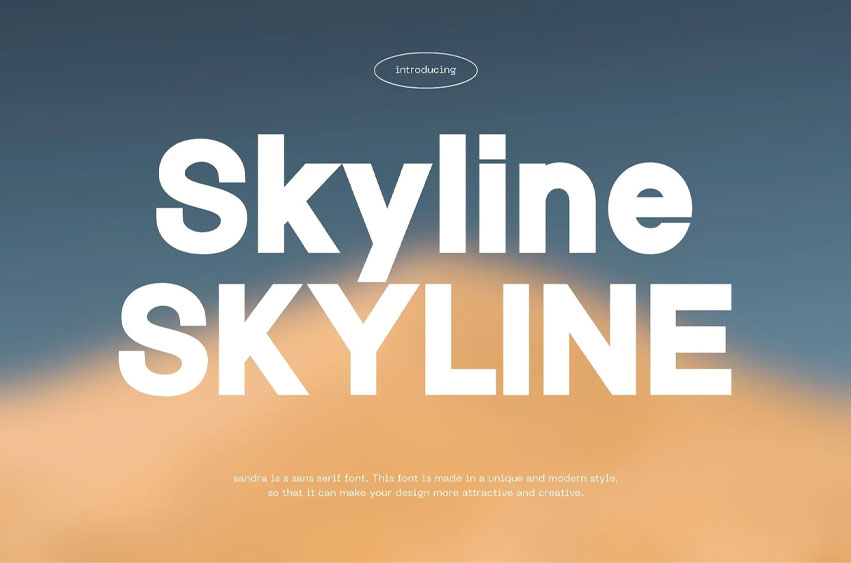
Skyline Bold Font
Skyline Bold Font is a modern sans-serif font that features a strong and commanding presence. Because of its thick strokes and clear shapes, this typeface is perfect for projects that require boldness combined with simplicity. Whether you use it for headlines, logos, or digital design, Skyline Bold delivers a confident and clean look.
First, the font showcases solid, uniform strokes paired with geometric letterforms. In addition, the wide letter spacing enhances readability while maintaining a compact, balanced structure. Also, the clean edges give the font a professional and fresh feel without being overly rigid or cold.
Moreover, Skyline Bold’s design is versatile and fits a variety of creative projects, including branding, advertising, tech, and fashion. Because of its clear and sturdy style, it pairs well with lighter sans-serifs or elegant serif fonts. This allows designers to create clear contrasts and effective visual hierarchy in their layouts.
Besides its bold appearance, Skyline Bold remains highly legible across different sizes and formats. The open shapes prevent crowding, making it easy for viewers to focus on the text. Furthermore, its straightforward design adapts well to both print and digital media.
To summarize, Skyline Bold offers:
• Strong modern sans-serif with solid strokes
• Geometric letterforms with clean edges
• Wide spacing for enhanced readability
• Versatile design for many creative uses
• Professional, bold, and fresh look
In conclusion, Skyline Bold is an excellent choice for designers seeking a bold yet clean sans-serif font. Download it today to add strength and clarity to your projects.